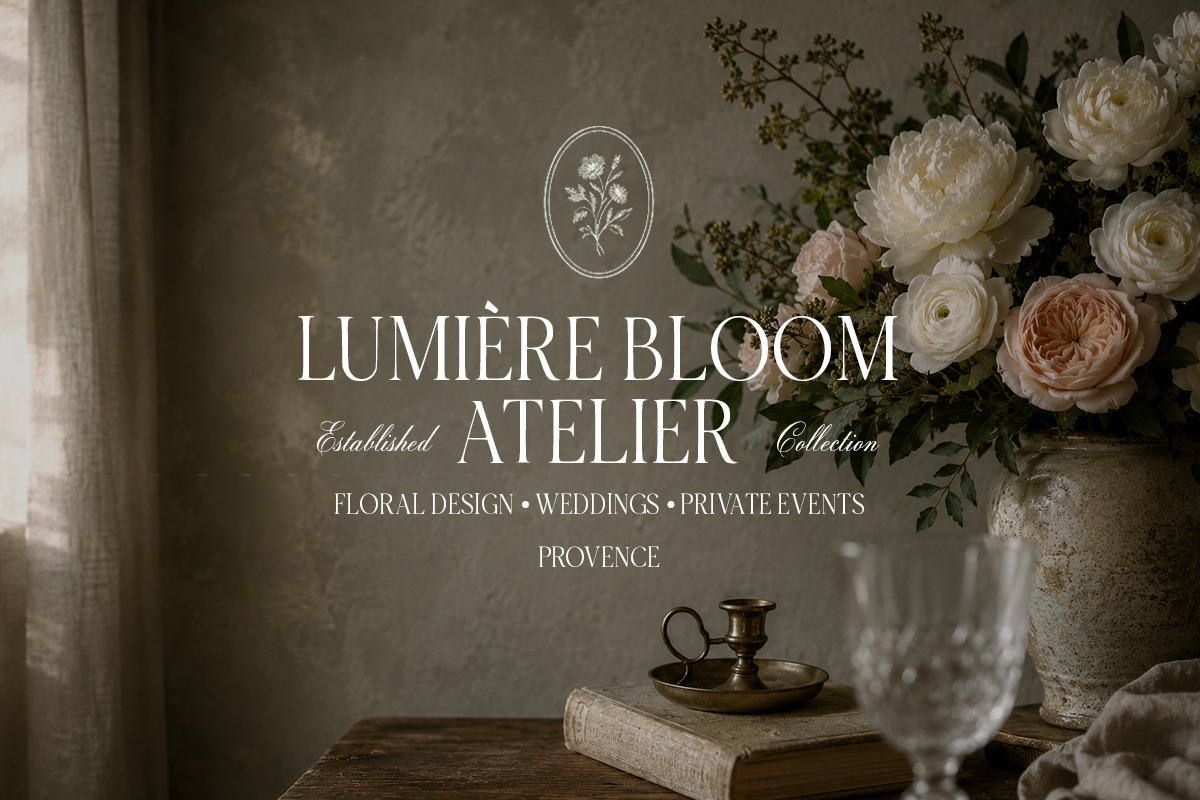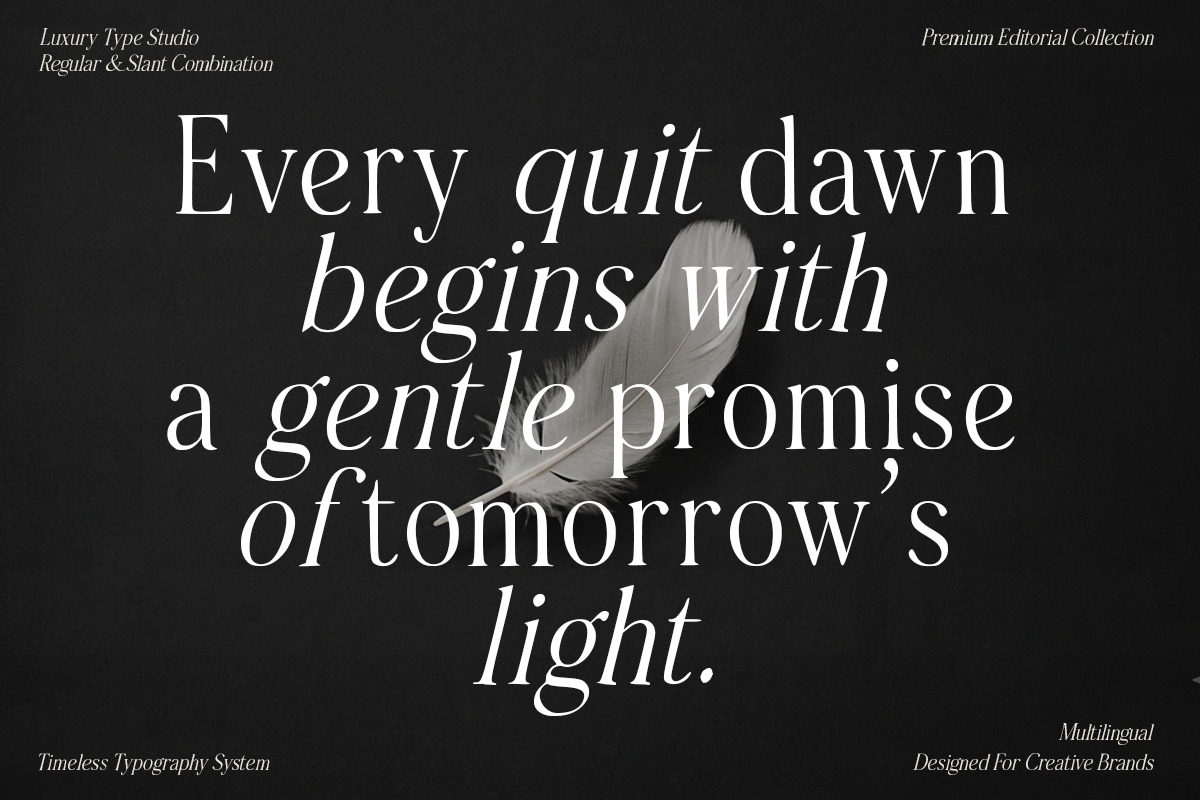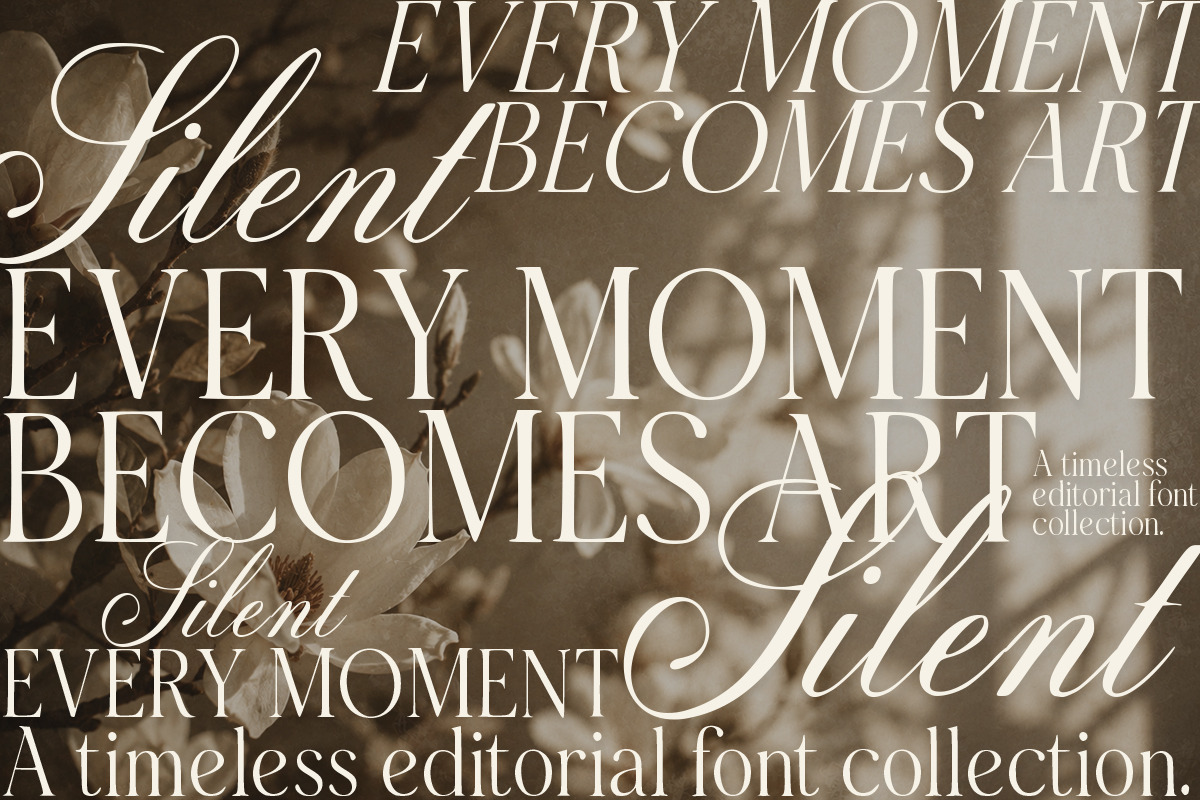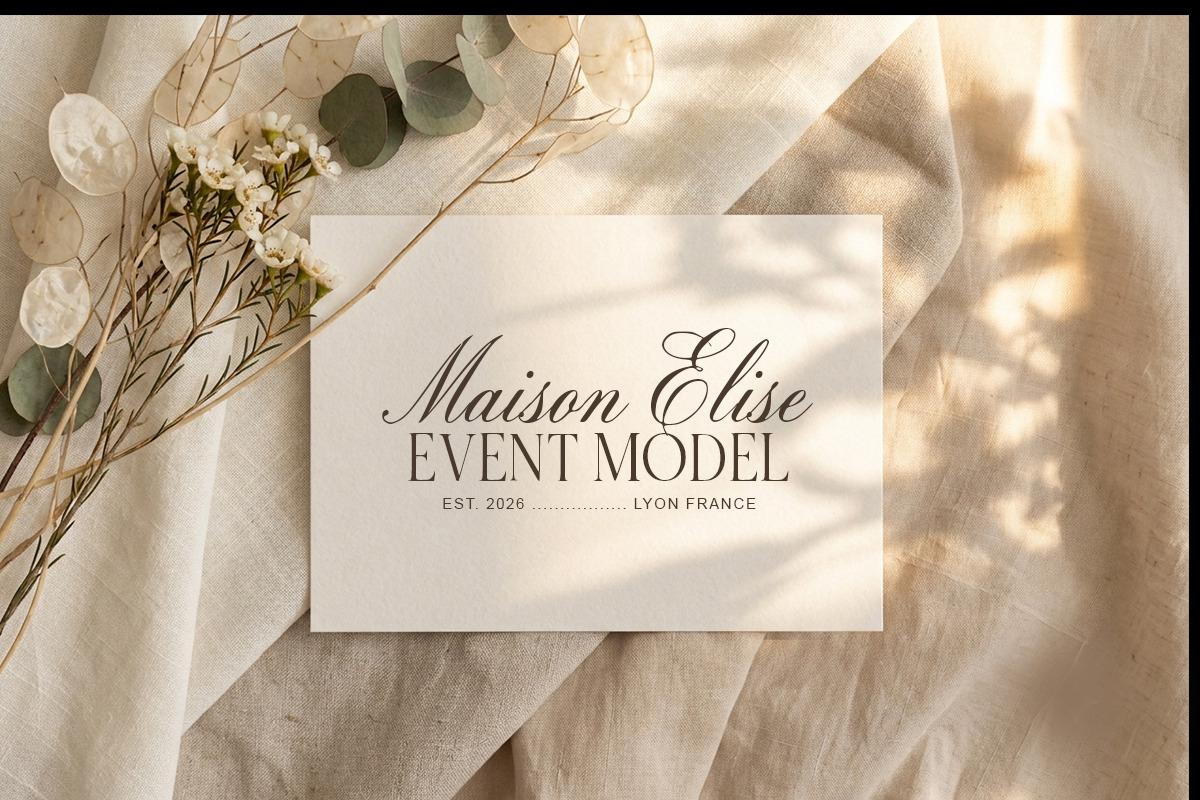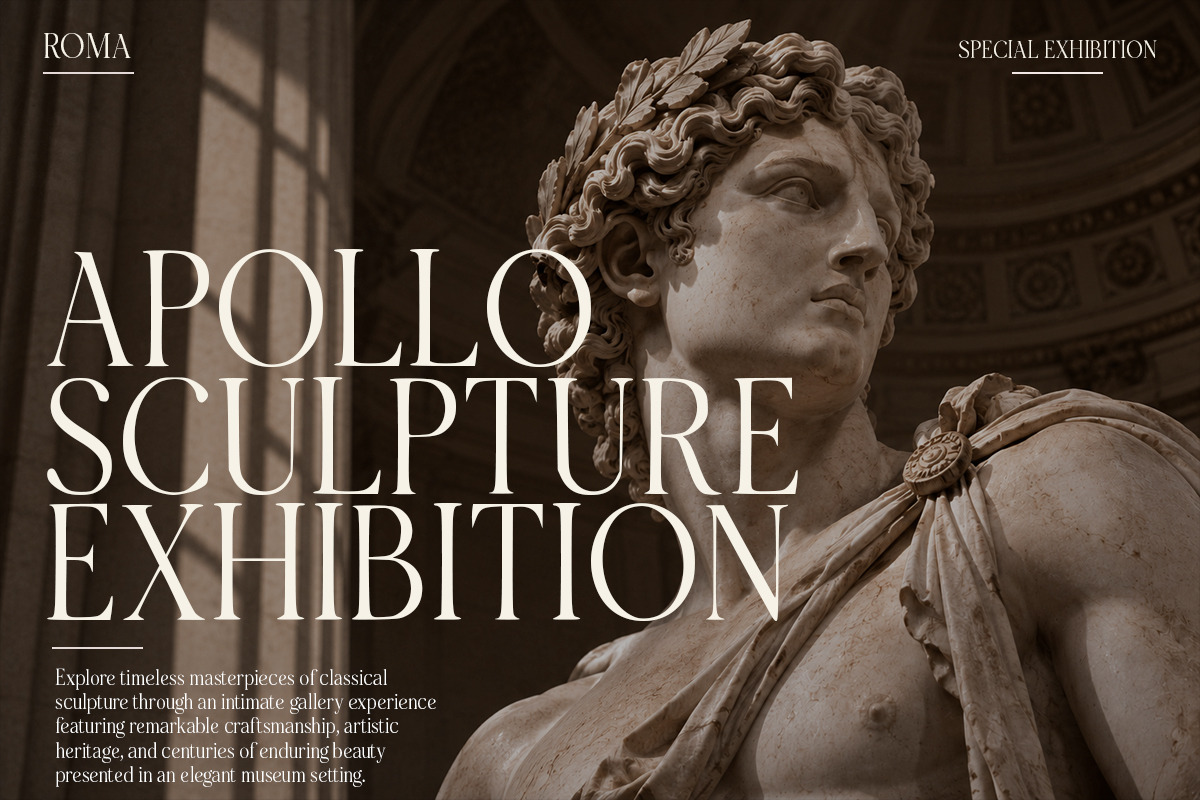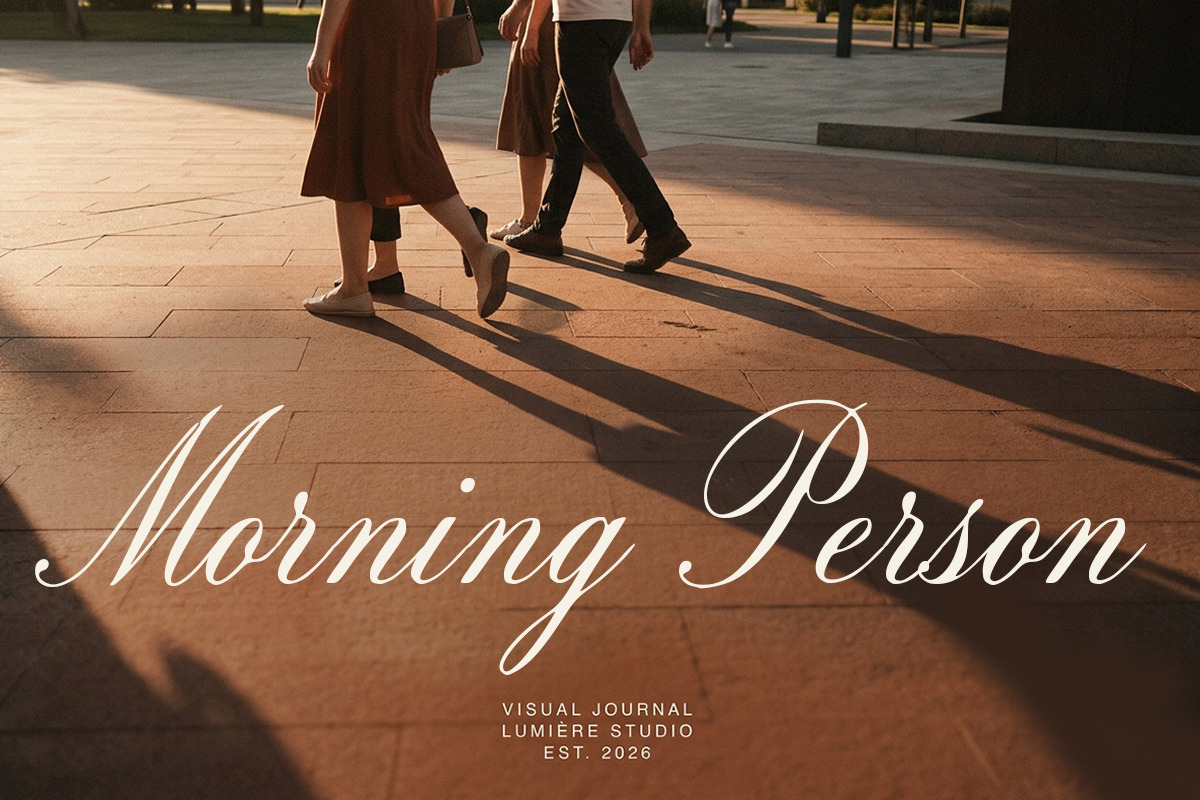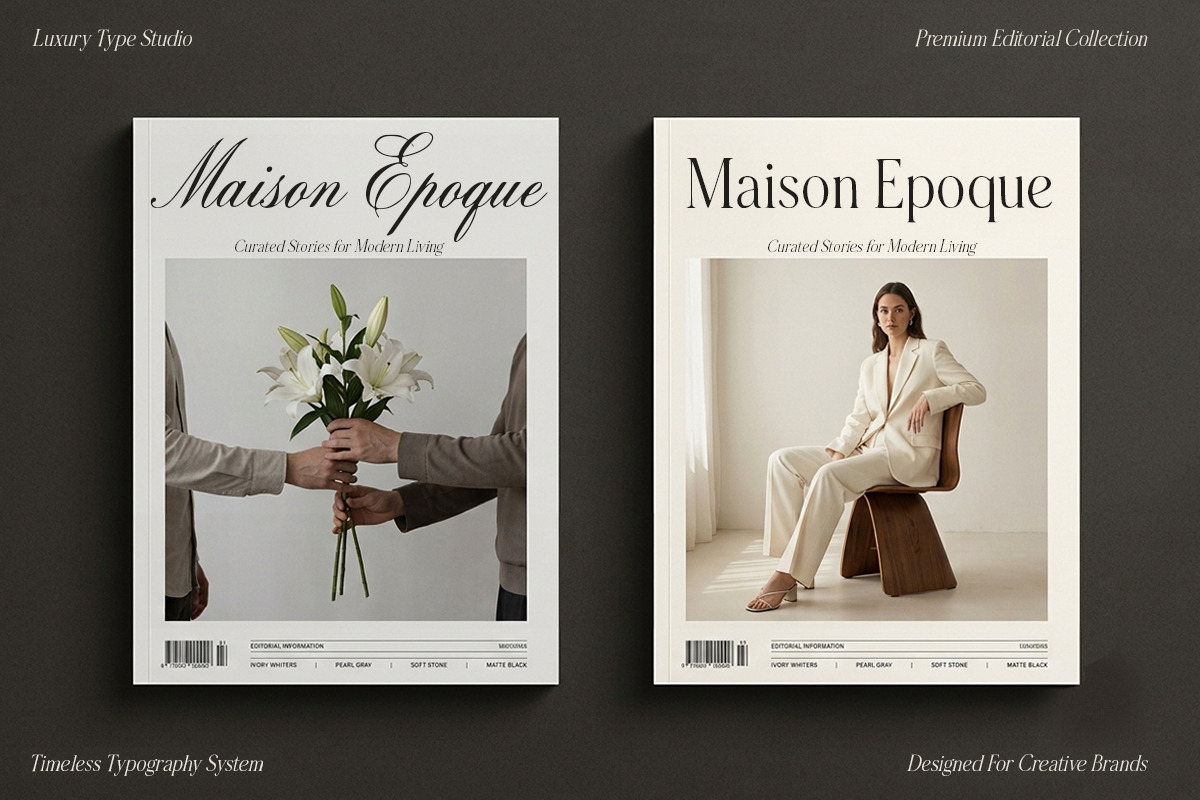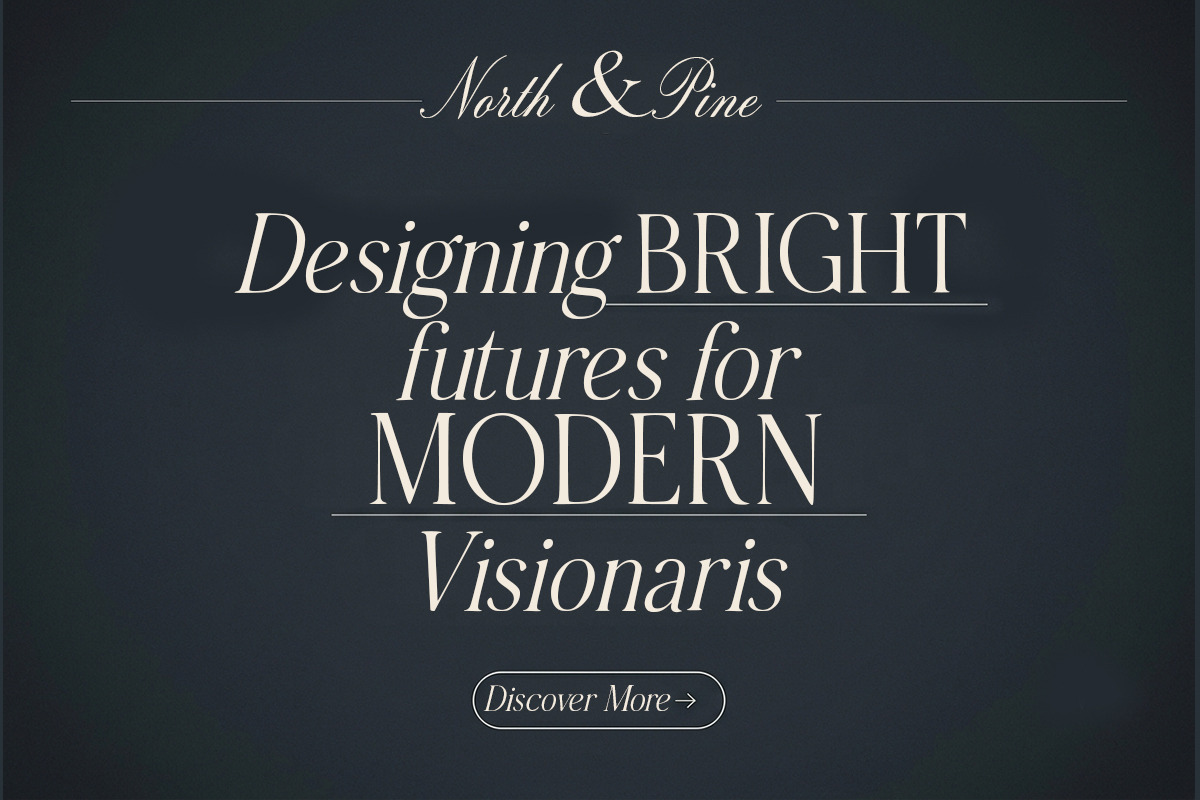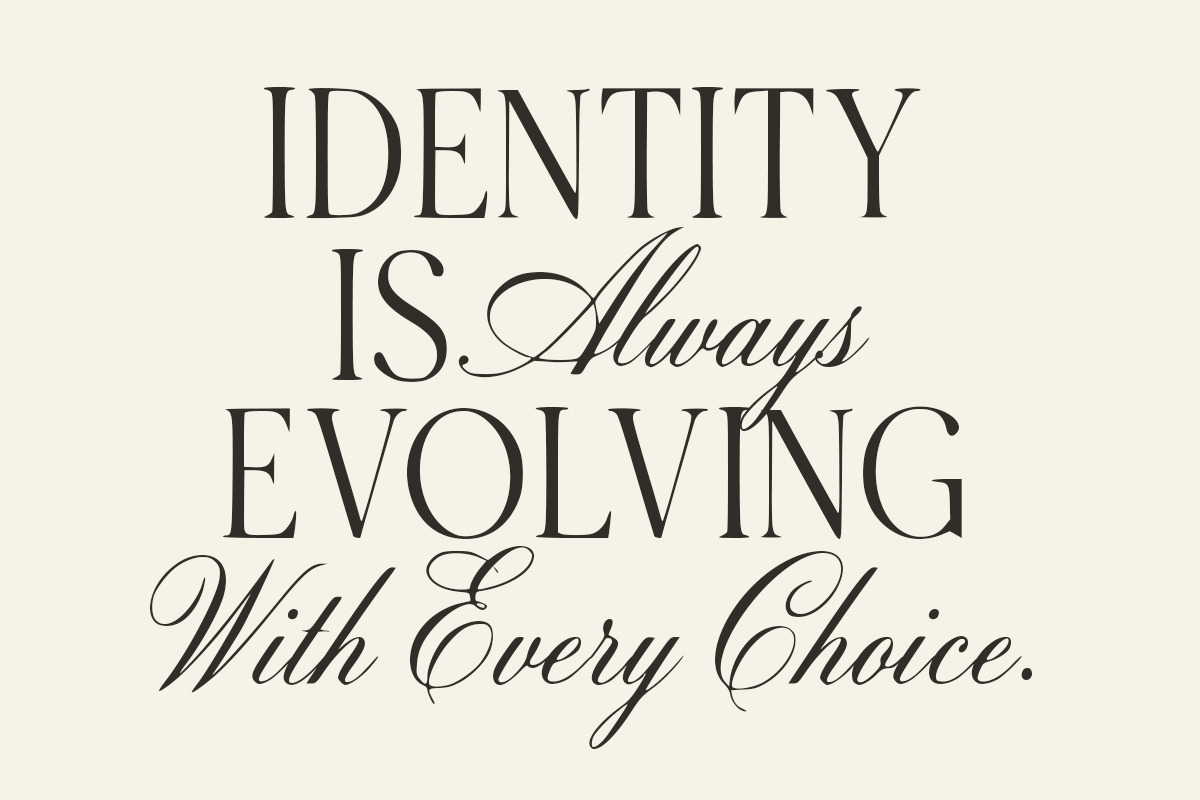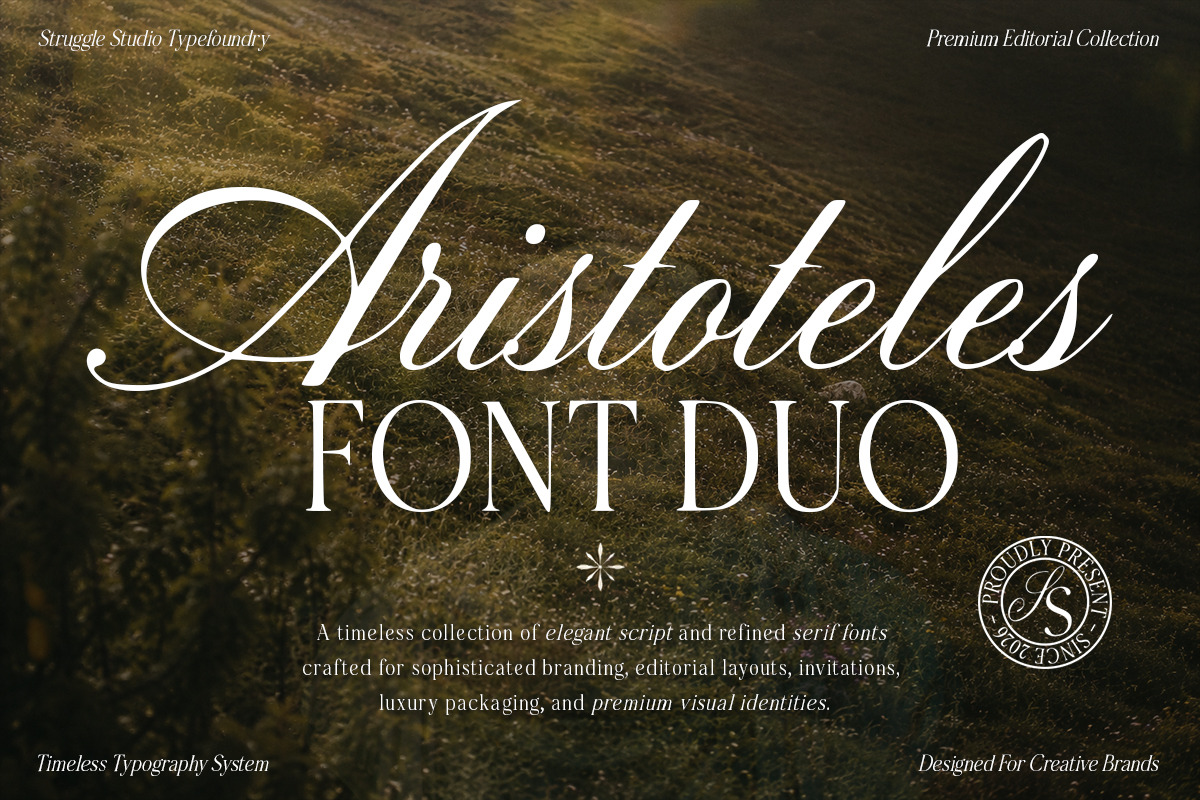
Aristoteles | Font Duo
The Aristoteles Font Duo is a masterpiece of modern typography, a meticulously crafted pairing of an exquisite script and a refined serif font. Designed for creative brands and premium visual identities, this collection offers a seamless blend of classic sophistication and contemporary style.
The Script: The Aristoteles Script features graceful strokes, flowing lines, and a touch of organic charm. Its fluid curves and ornate details exude romance and refinement, perfect for creating memorable logos, sophisticated wedding invitations, and bespoke packaging.
The Serif: The Aristoteles Serif is a pillar of strength and clarity. Its clean lines, balanced proportions, and sharp details provide a modern touch to traditional elegance. Use it for impactful headlines, legible editorial layouts, and authoritative branding that makes a statement.